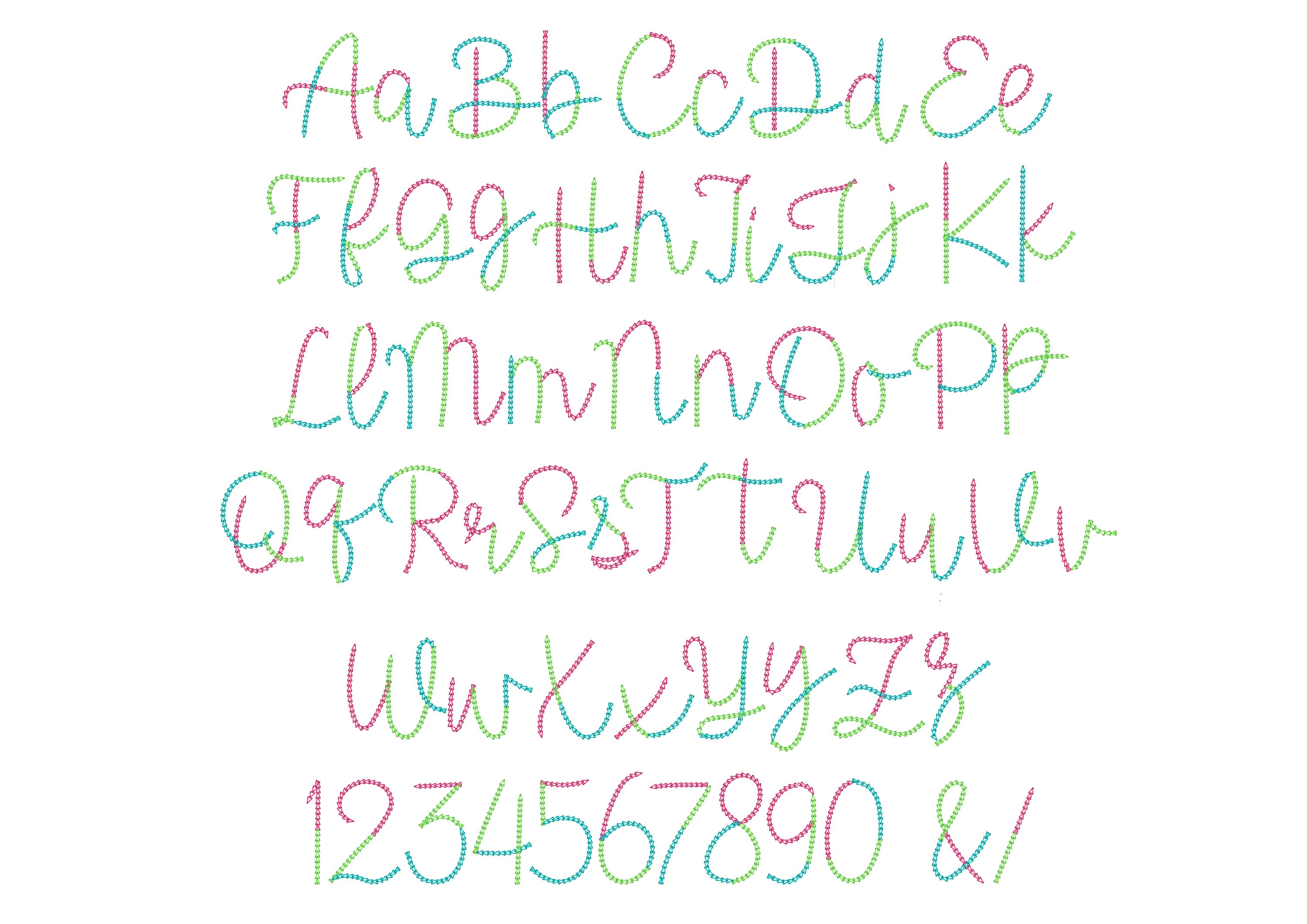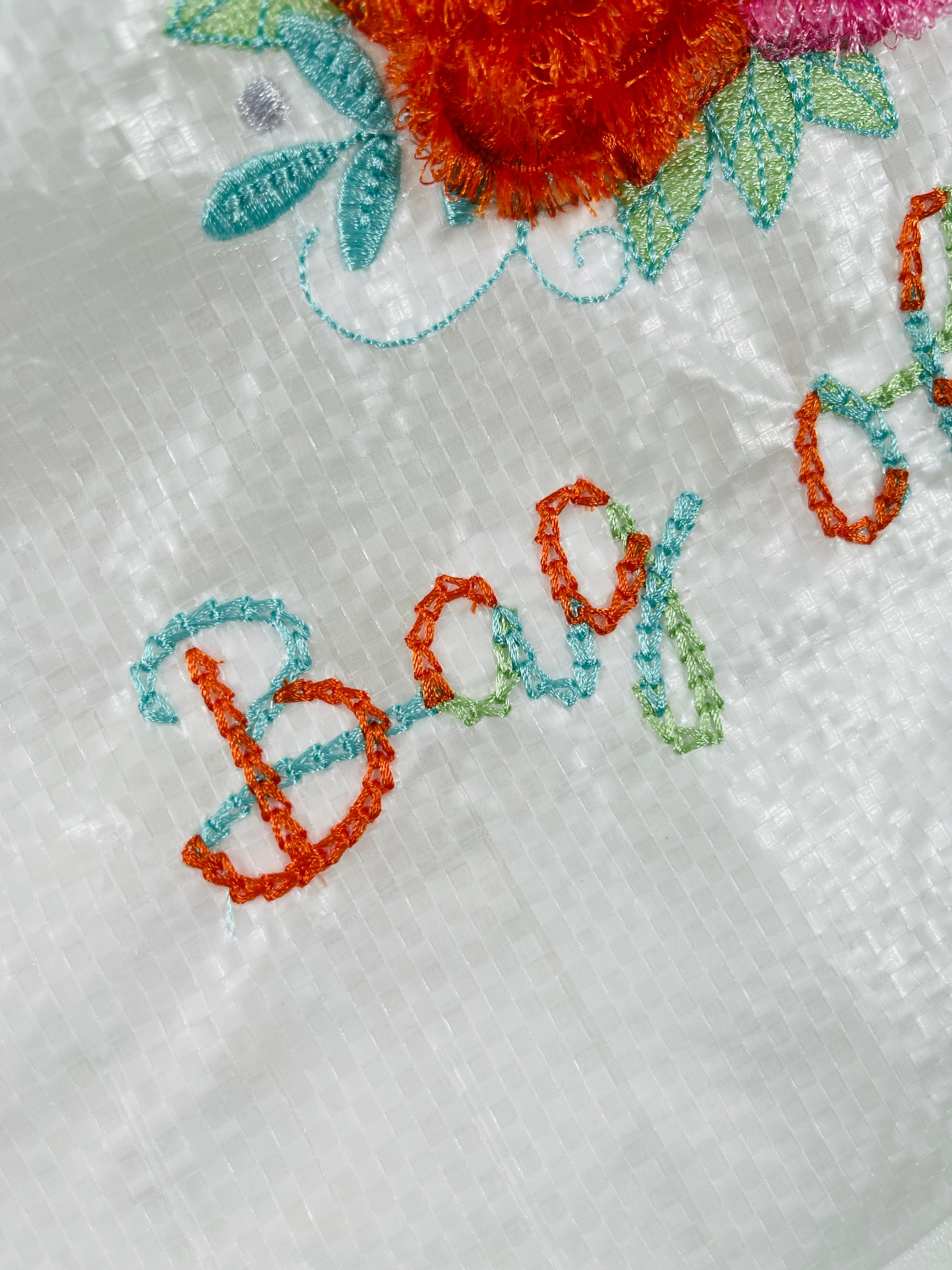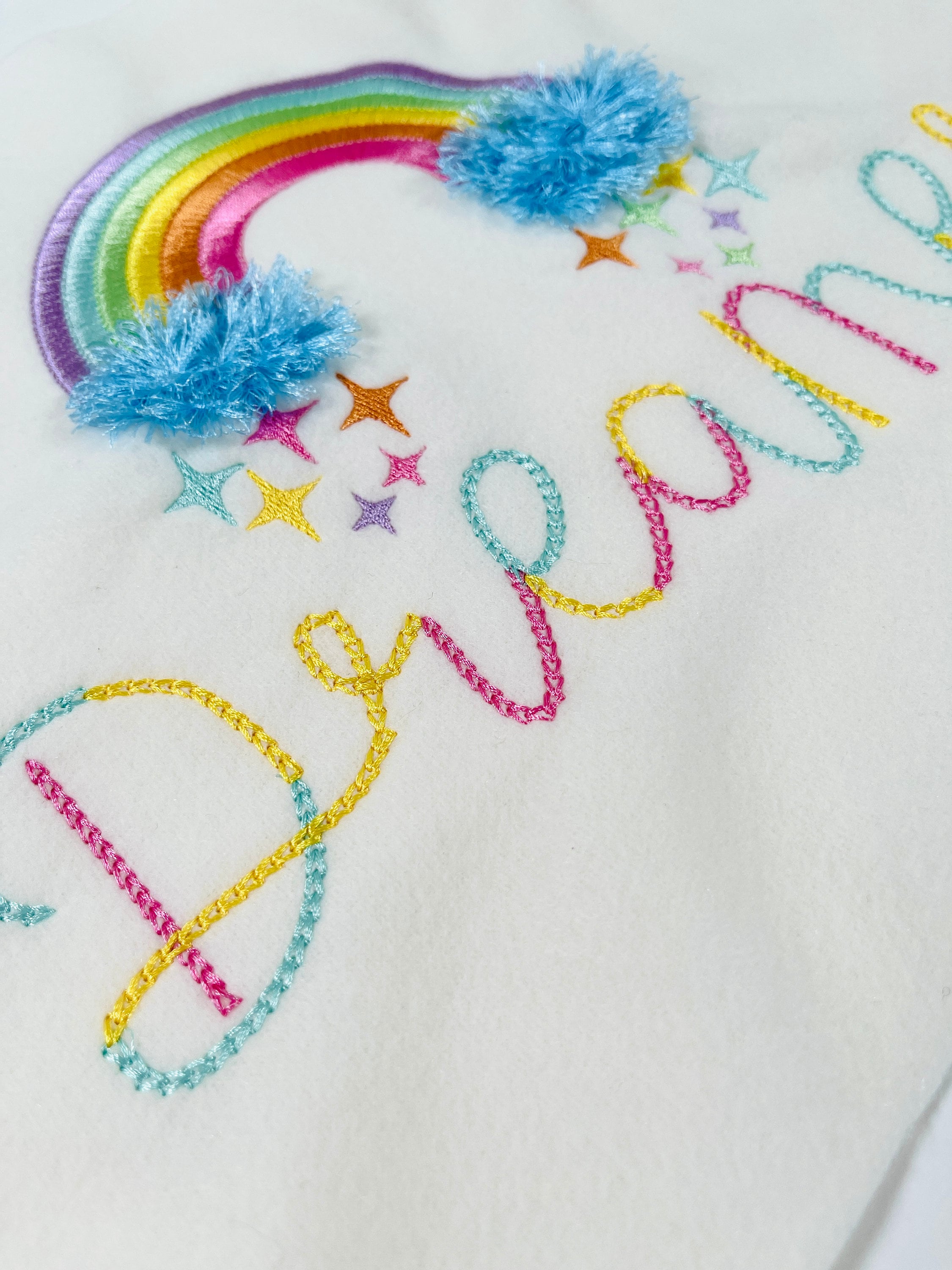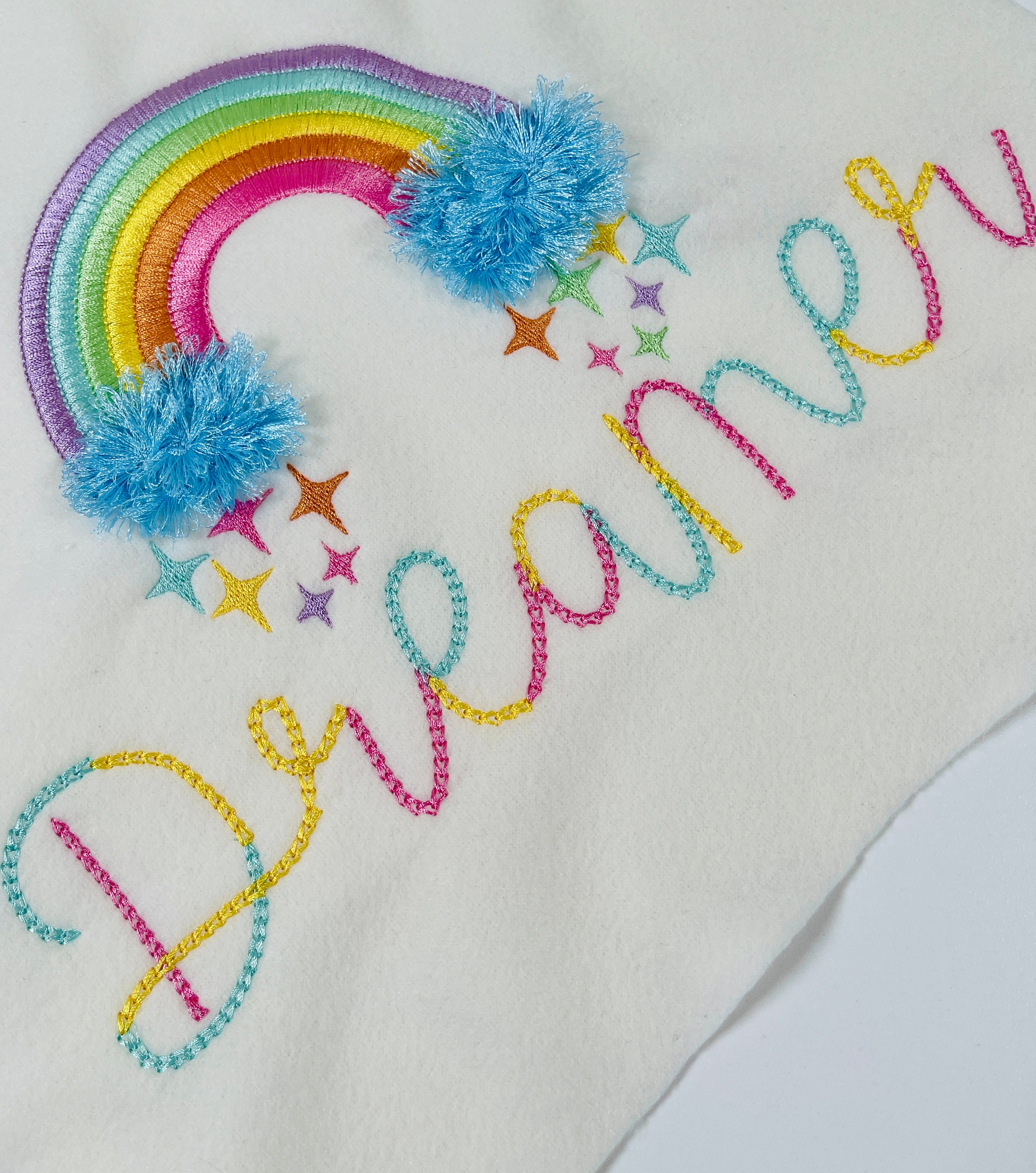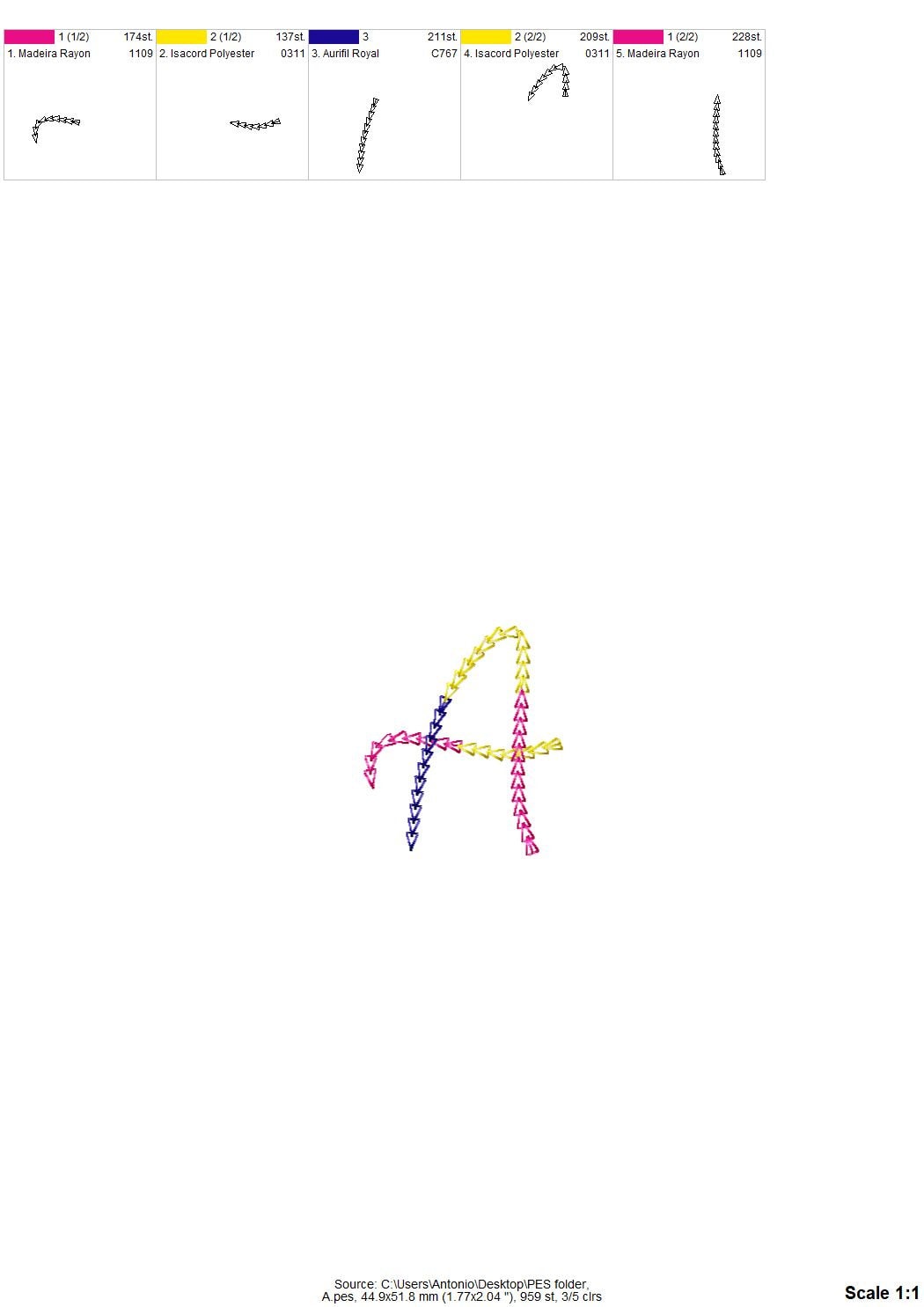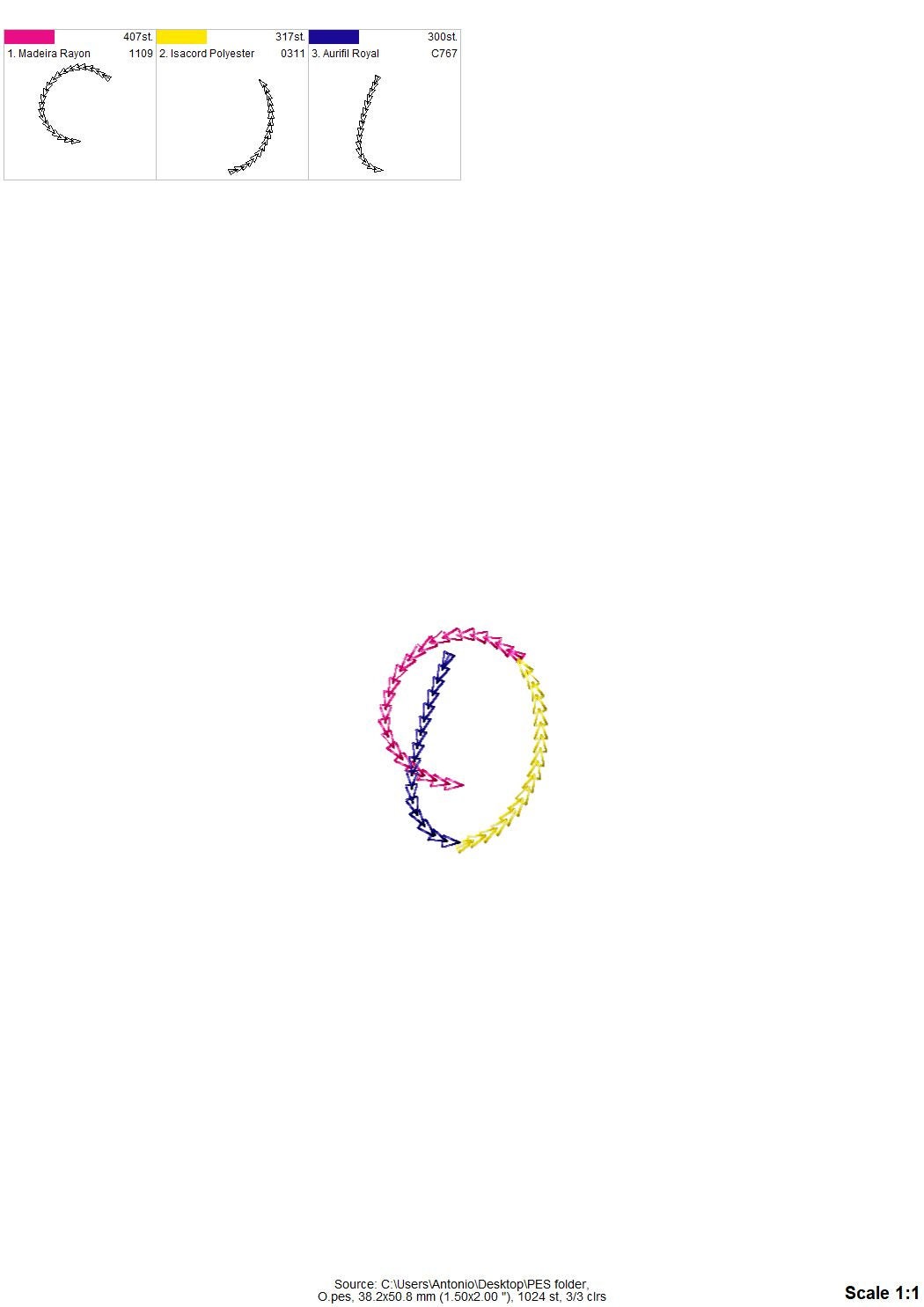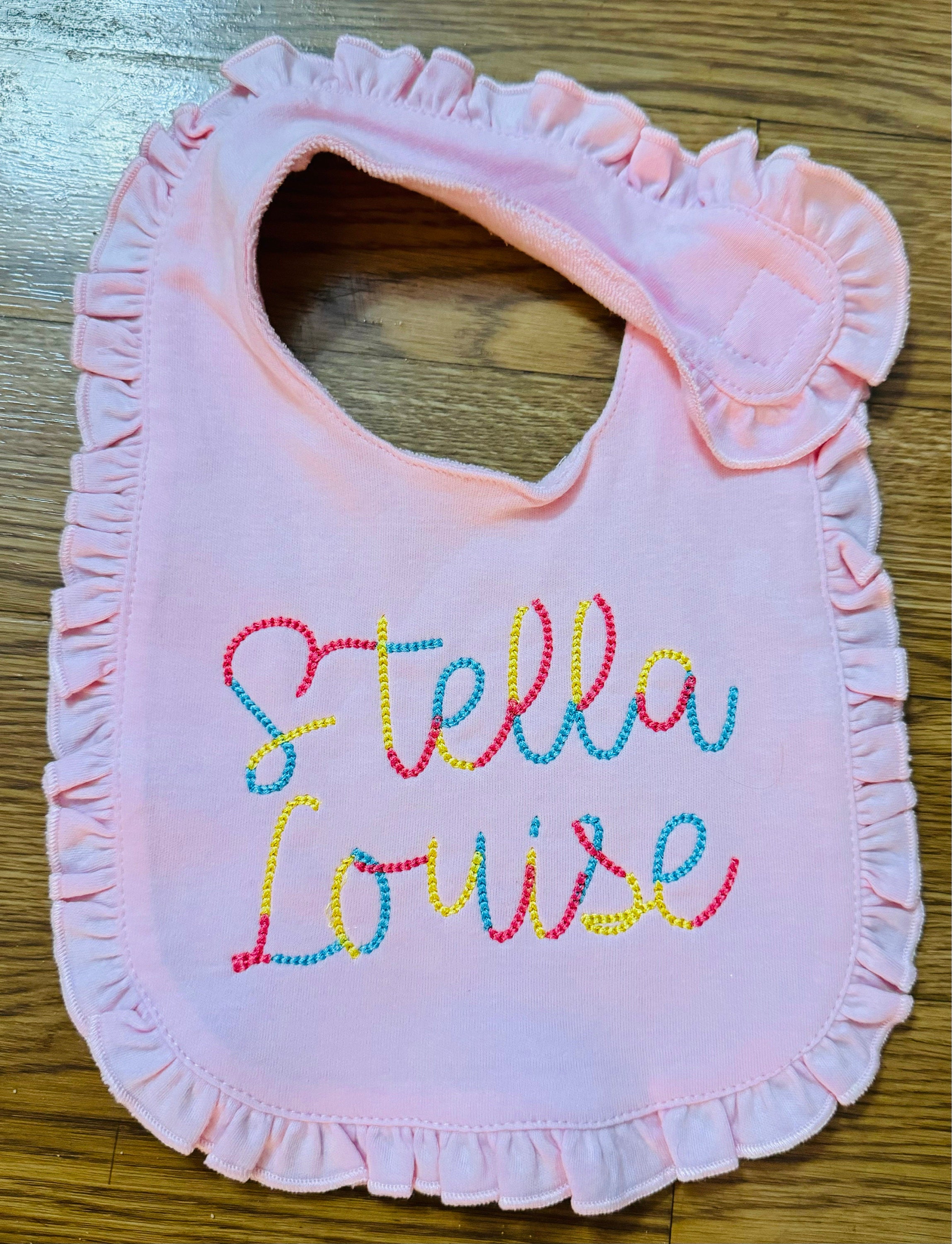
Color smash light stitch Chain FONT machine embroidery designs in assorted mini sizes alphabet letters playful kids name monogram, BX
Whole alphabet A-Z uppercase and lowercase letters, numbers 0-9, and punctuation.